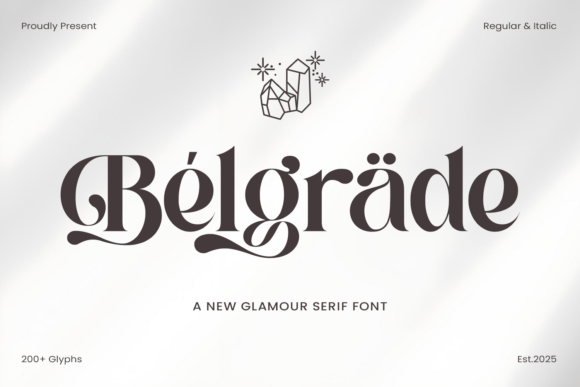
Introducing Belgrade Font: The Epitome of Elegance and Sophistication
In the realm of typography, few fonts manage to convey the essence of luxury and class as effectively as the Belgrade Font. This exquisite serif font is meticulously crafted to bring a timeless charm to any project, making it an ideal choice for designers seeking to infuse their work with a touch of sophistication. With its beautifully designed ligatures, refined curves, and delicate details, Belgrade Font is poised to elevate your typography to new heights.
The Design Philosophy Behind Belgrade Font
The Belgrade Font is the culmination of meticulous design and a deep understanding of typographic elegance. Each character is thoughtfully designed with beginning and ending swashes, adding a graceful and artistic touch to your typography. These swashes not only enhance the aesthetic appeal of the font but also provide a level of sophistication that is hard to match. The ligatures, refined curves, and delicate details work in harmony to create a font that exudes luxury and class.
Perfect for High-End Branding and Design Projects
Belgrade Font is perfectly suited for high-end branding, making it an ideal choice for logos, quotes, blog posts, wedding invitations, product packaging, and more. Its elegant and sophisticated design ensures that your brand stands out from the crowd, conveying a sense of luxury and refinement that resonates with your target audience. Whether you’re designing for special occasions like birthdays, Easter, Thanksgiving, Christmas, or seasonal themes such as summer, spring, and autumn, this font enhances every project with its enchanting appeal.
Versatility at Its Best
One of the standout features of Belgrade Font is its versatility. It’s not just limited to digital designs; it can also be used for crafting, embroidery, SVG designs, and stylish lettering. This versatility makes it an invaluable asset for designers who work across multiple mediums and platforms. Whether you’re creating a logo, a wedding invitation, or an embroidered design, Belgrade Font is sure to bring a level of sophistication and elegance that elevates your work.
Timeless Appeal
Trends in design come and go, but the Belgrade Font remains timeless. Its classic design ensures that it never goes out of style, making it a wise investment for designers and brands looking for a long-term typographic solution. Unlike trendy fonts that may look dated in a few years, Belgrade Font’s elegance and sophistication are enduring, ensuring that your designs remain relevant and stylish for years to come.
Enhancing Your Design Projects
Belgrade Font can be used in a wide range of design projects, from digital to print. Here are some ways you can use this elegant font to enhance your designs:
- Logos: Create a lasting impression with a logo that exudes luxury and sophistication.
- Wedding Invitations: Add a touch of elegance to your wedding invitations and make your special day even more memorable.
- Blog Posts: Elevate your blog posts with a font that is both readable and stylish.
- Product Packaging: Stand out on the shelves with product packaging that features a sophisticated and elegant font.
- Crafting and Embroidery: Use Belgrade Font for your crafting and embroidery projects to add a level of sophistication and elegance.
Why Choose Belgrade Font?
With so many fonts available, why choose Belgrade Font? Here are a few reasons why this font stands out:
- Elegance and Sophistication: Belgrade Font exudes luxury and class, making it perfect for high-end branding and design projects.
- Versatility: Use Belgrade Font across multiple mediums and platforms, from digital to print.
- Timeless Appeal: This font’s classic design ensures that it never goes out of style.
- Attention to Detail: Each character is thoughtfully designed with beginning and ending swashes, adding a graceful and artistic touch to your typography.
In conclusion, Belgrade Font is an elegant and sophisticated serif font that brings a timeless charm to any project. With its beautifully crafted ligatures, refined curves, and delicate details, this font exudes luxury and class. Its versatility, timeless appeal, and attention to detail make it an ideal choice for designers seeking to elevate their typography. Whether you’re working on a high-end branding project, a wedding invitation, or a crafting project, Belgrade Font is sure to enhance your design with its enchanting appeal.
- What is Belgrade Font? Belgrade Font is an elegant and sophisticated serif font designed to bring a timeless charm to any project.
- Is Belgrade Font suitable for high-end branding? Yes, Belgrade Font is perfectly suited for high-end branding, making it an ideal choice for logos, quotes, blog posts, wedding invitations, product packaging, and more.
- Can I use Belgrade Font for crafting and embroidery? Yes, Belgrade Font is perfect for crafting, embroidery, SVG designs, and stylish lettering.